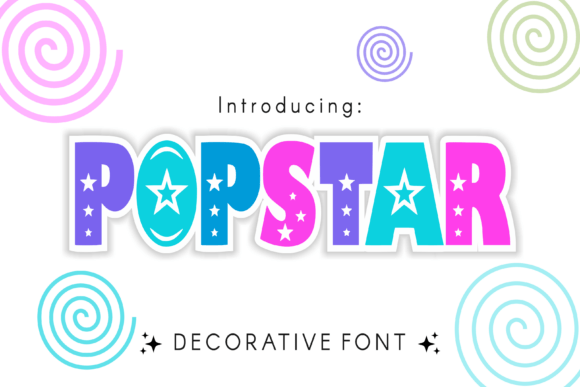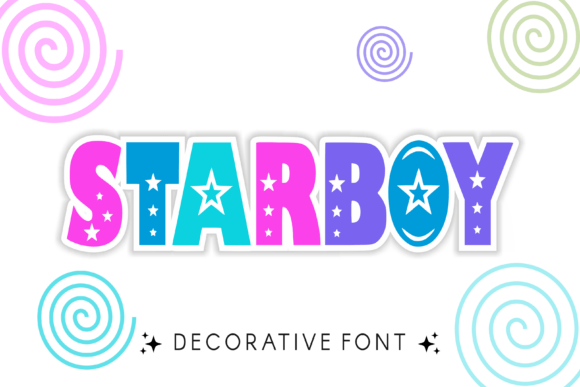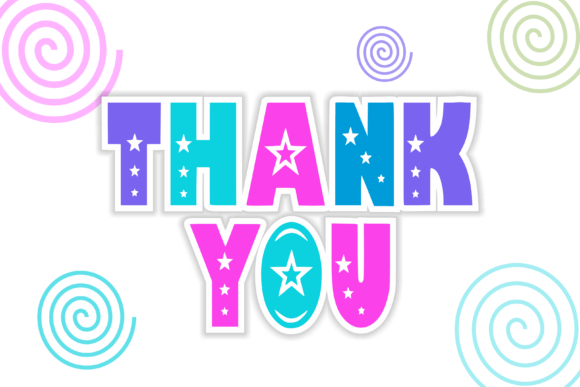
Popstar Font: A Playful Decorative Font for Cute DIY Projects!
About the Popstar Font
We are excited to introduce Popstar Font, a must-have typeface for any serious designer. Unveiling “Popstar,” an exquisite decorative typeface that oozes luxury. Its unique charm, infused with glittering stars, captivates all font enthusiasts, making it hard to ignore. With its sophisticated design, “Popstar” effortlessly elevates the allure of t-shirt graphics, mug imprints, stickers, comics and a myriad of other aesthetics. Dive into the captivating universe that is “Popstar,” and let this font transform the mundane into something truly magical.
Popstar’s bold, playful energy makes it ideal for headlines, short text blocks on posters, and branding elements where a touch of whimsical luxury is desired. It excels in applications like logos, packaging for high-end products, and social media graphics. However, its decorative nature makes it less suitable for body text or UI elements requiring high readability. Avoid using it for long paragraphs or situations where legibility is paramount.
Pairing Popstar effectively requires considering its strong personality. A clean sans-serif like Futura or a geometric sans-serif like Montserrat would provide a sharp contrast and enhance readability in supporting text. For a more playful approach, consider pairing it with a rounded sans-serif such as Gill Sans or a fun, slightly quirky script font for a layered effect.
The font’s overall personality is best described as bold, playful, and luxurious. It suits brands targeting a young, affluent demographic interested in fashion, entertainment, or beauty, where a touch of extravagance is appreciated.
Popstar Font Usage Examples
Popstar Font Example